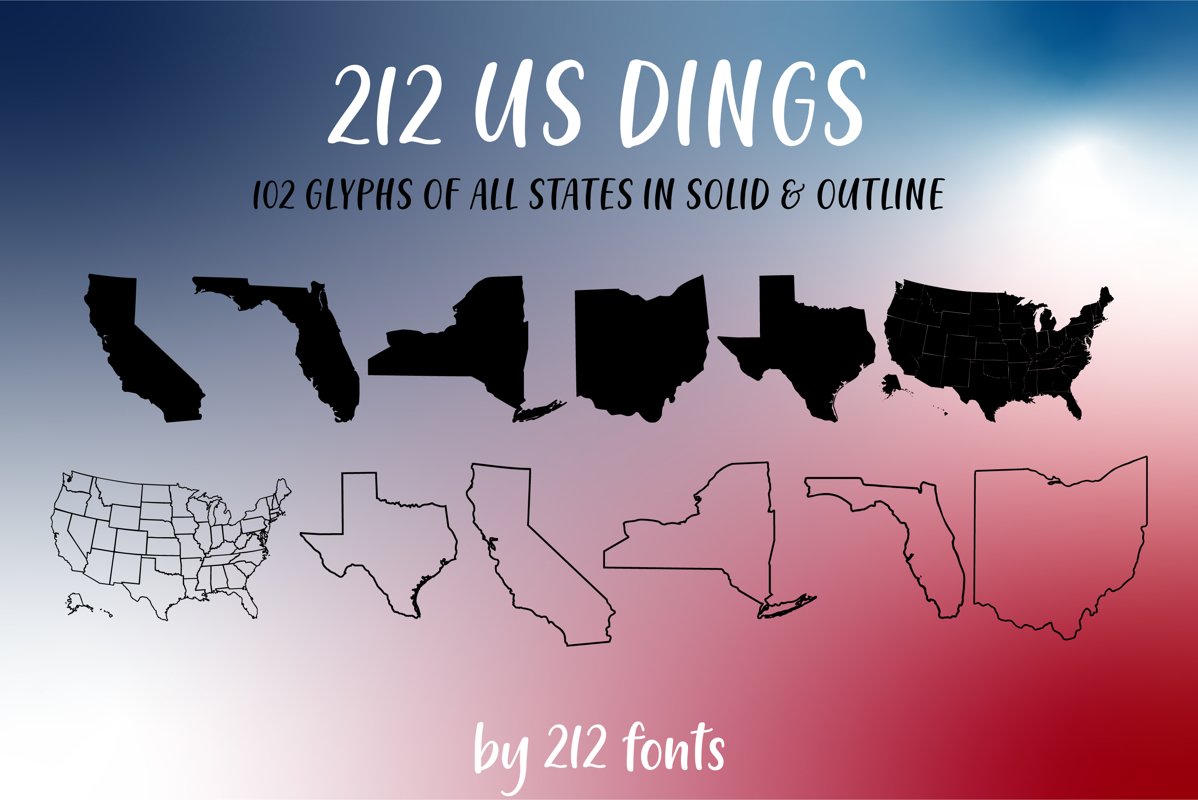
212 US Dings United States Dingbat Solid and Outline Font
212 US Dings
US Dings is a fun dingbat font made of 102 glyphs of all 50 states in solid and outline form! This font would be handy in logo and graphic creations as well as crafting, cutting machines and more!